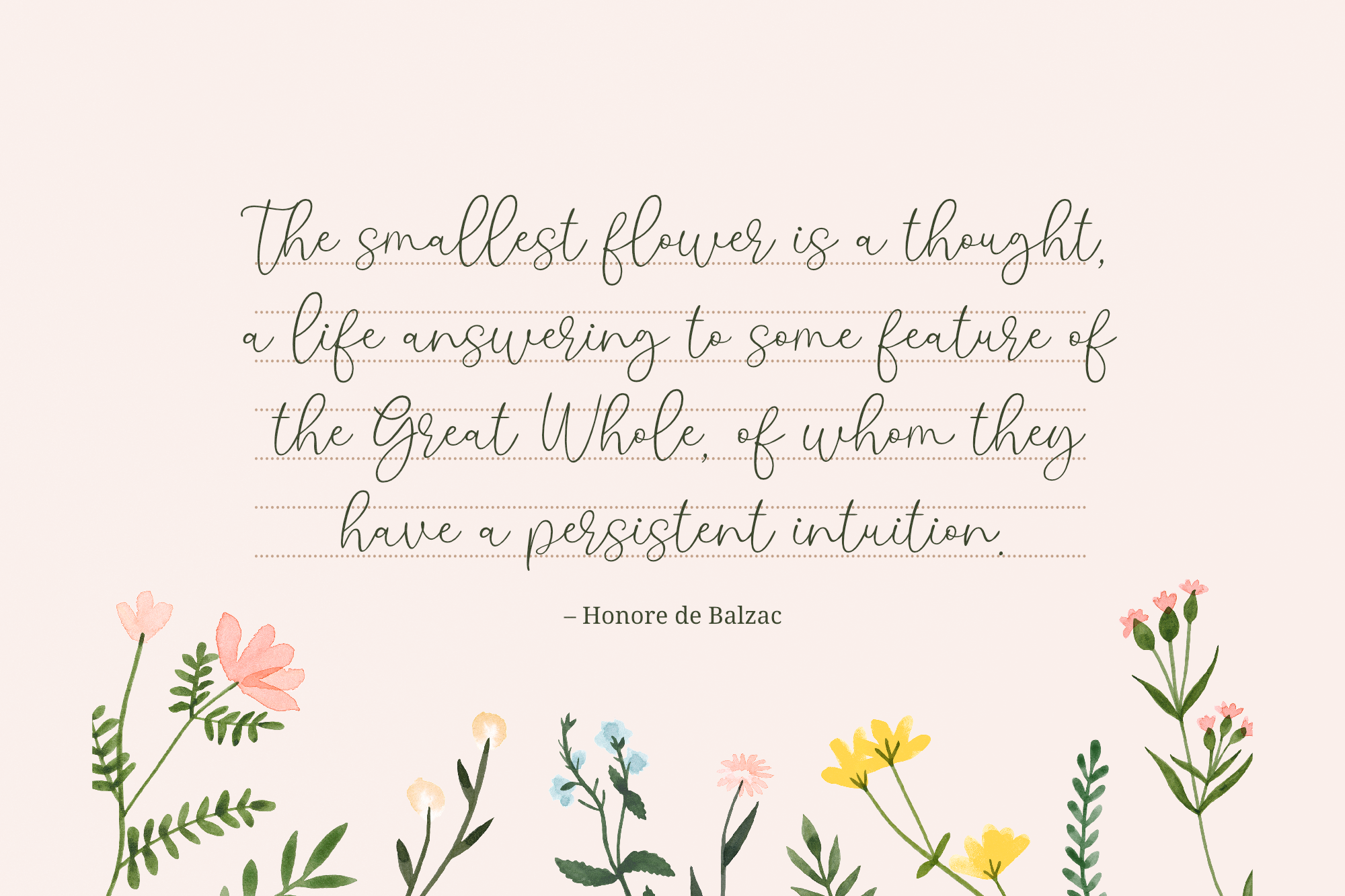
Tersely Script Font
This is a modern script font. It has a casual feel that makes your designs attractive, versatile and pleasing to the eye. Tersely will look amazing in any context, be it wedding invitations, logos, branding, quotes and many others.